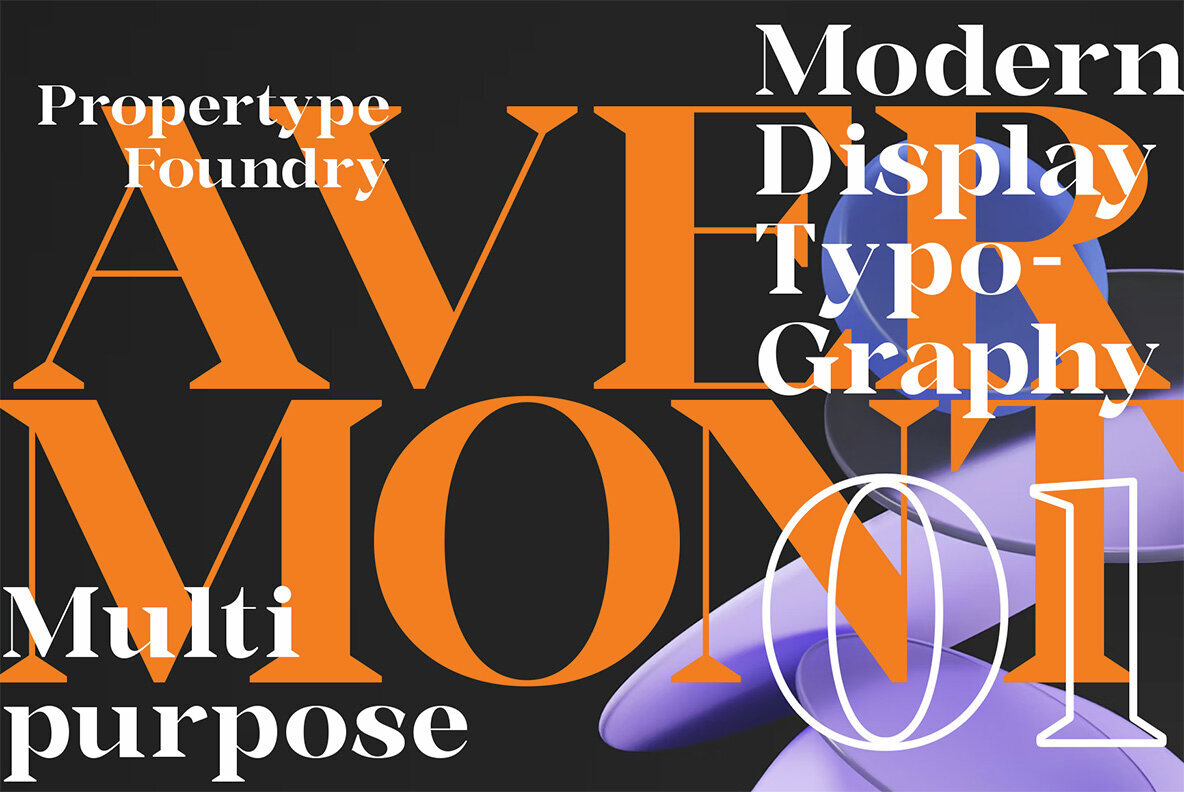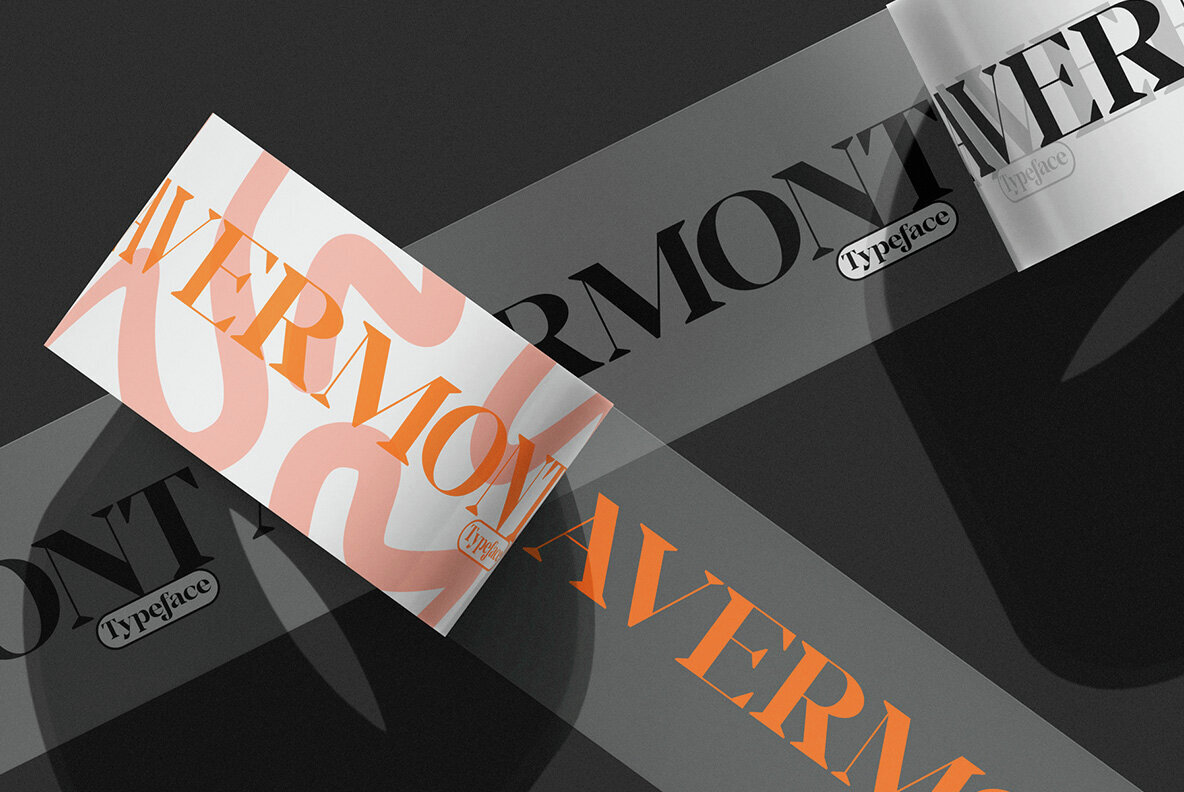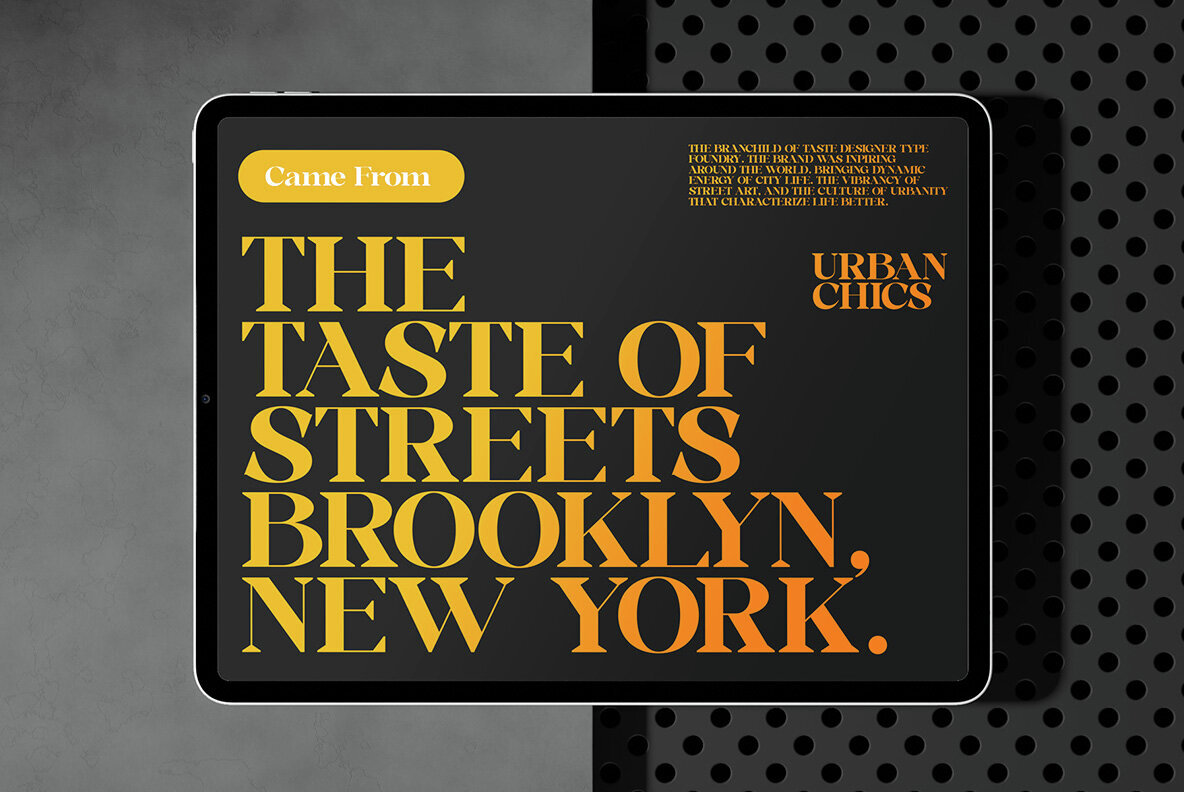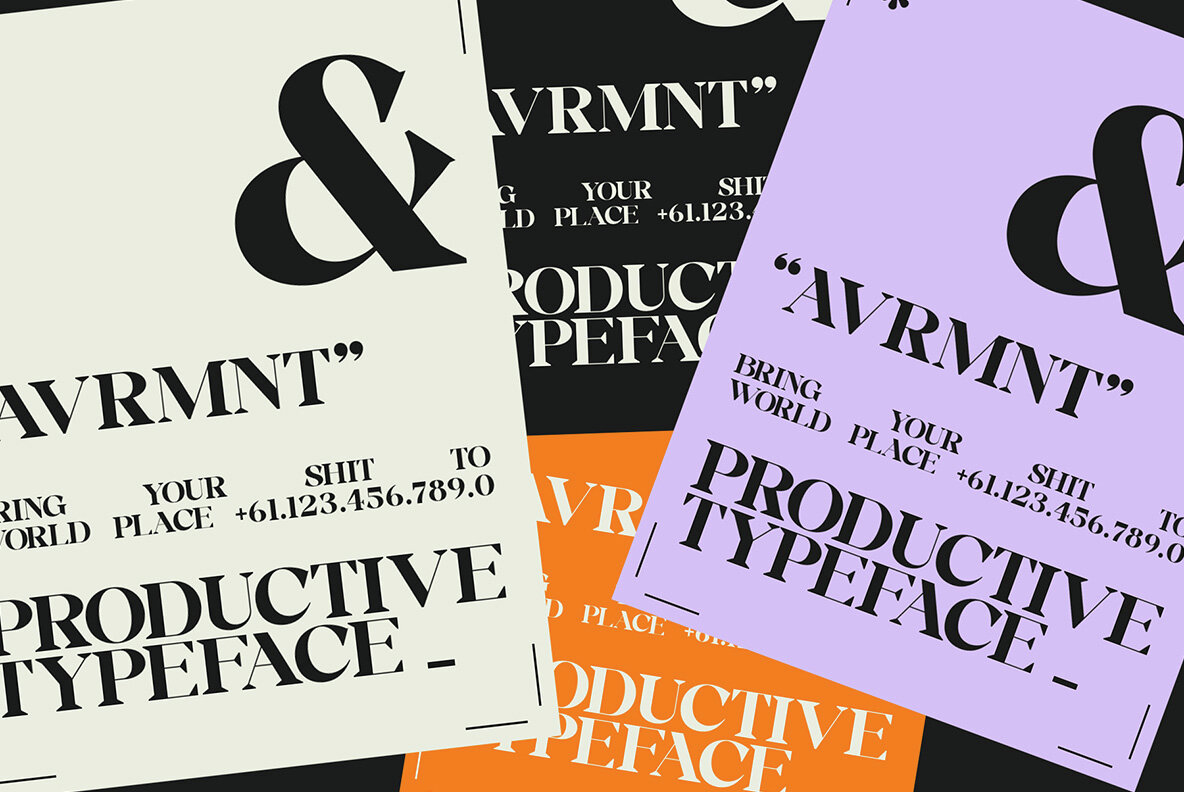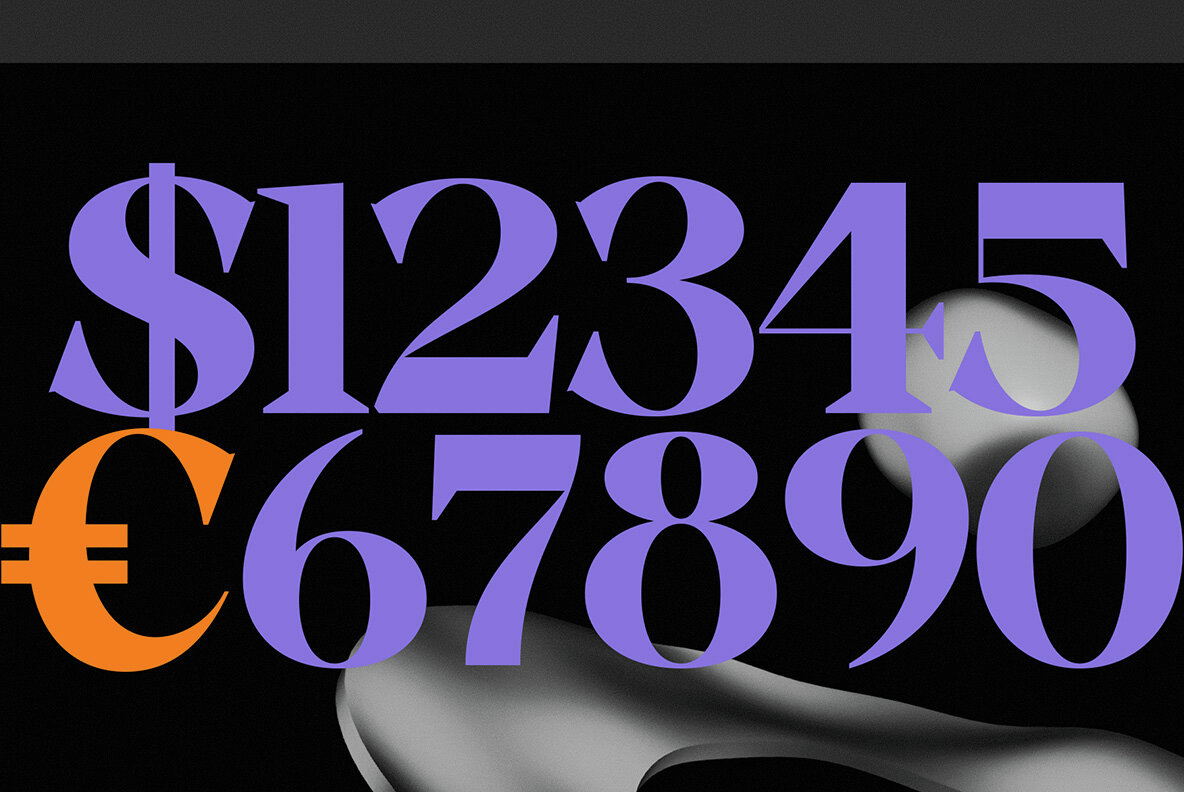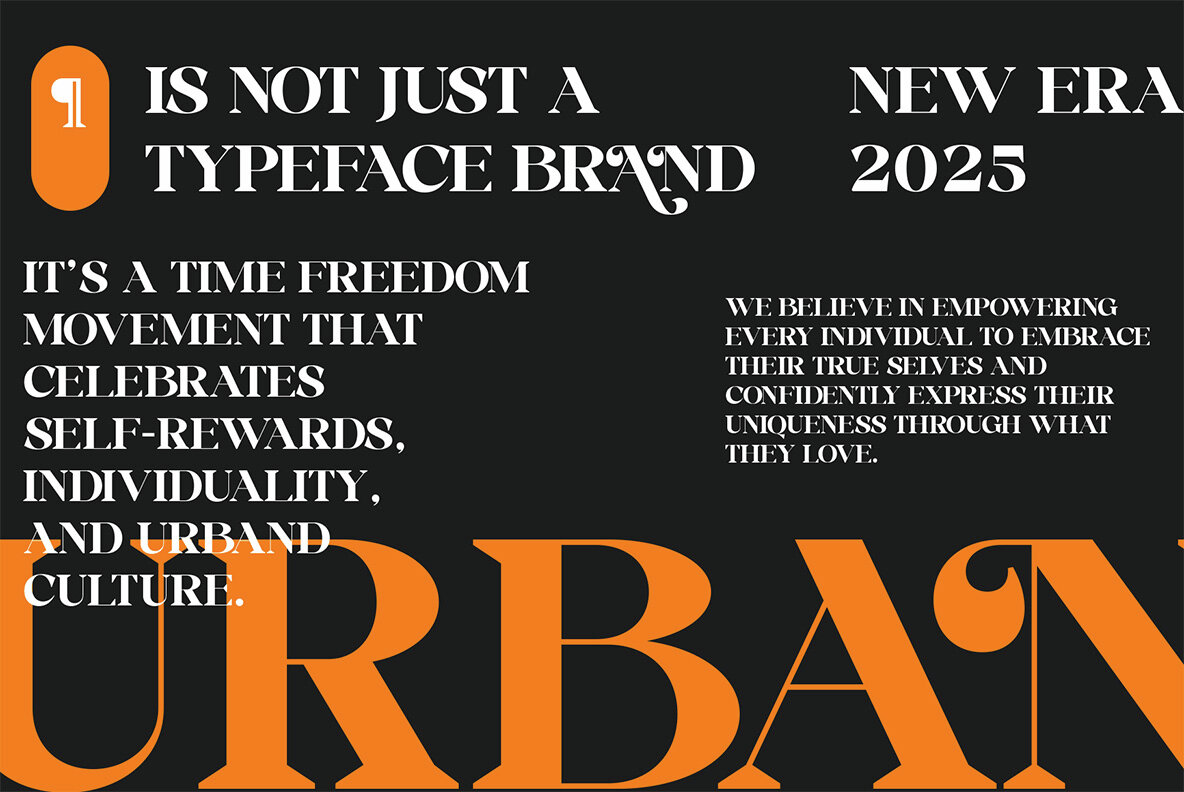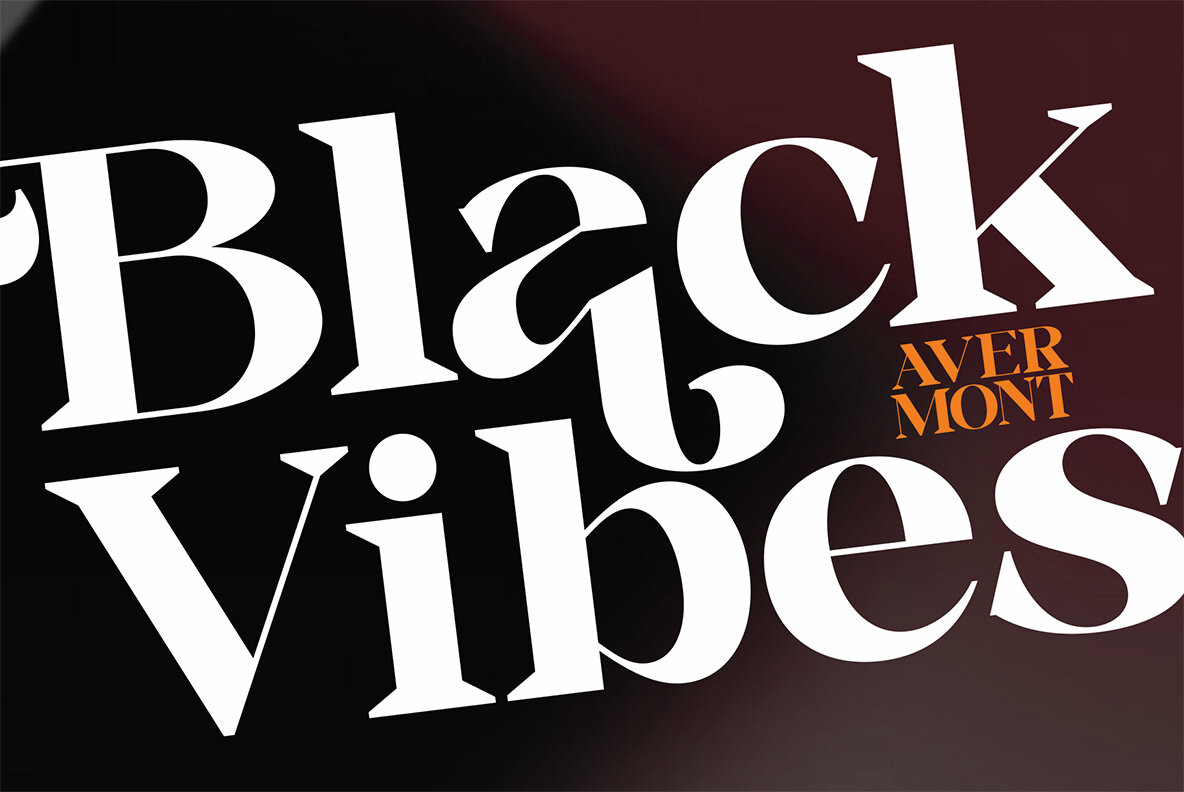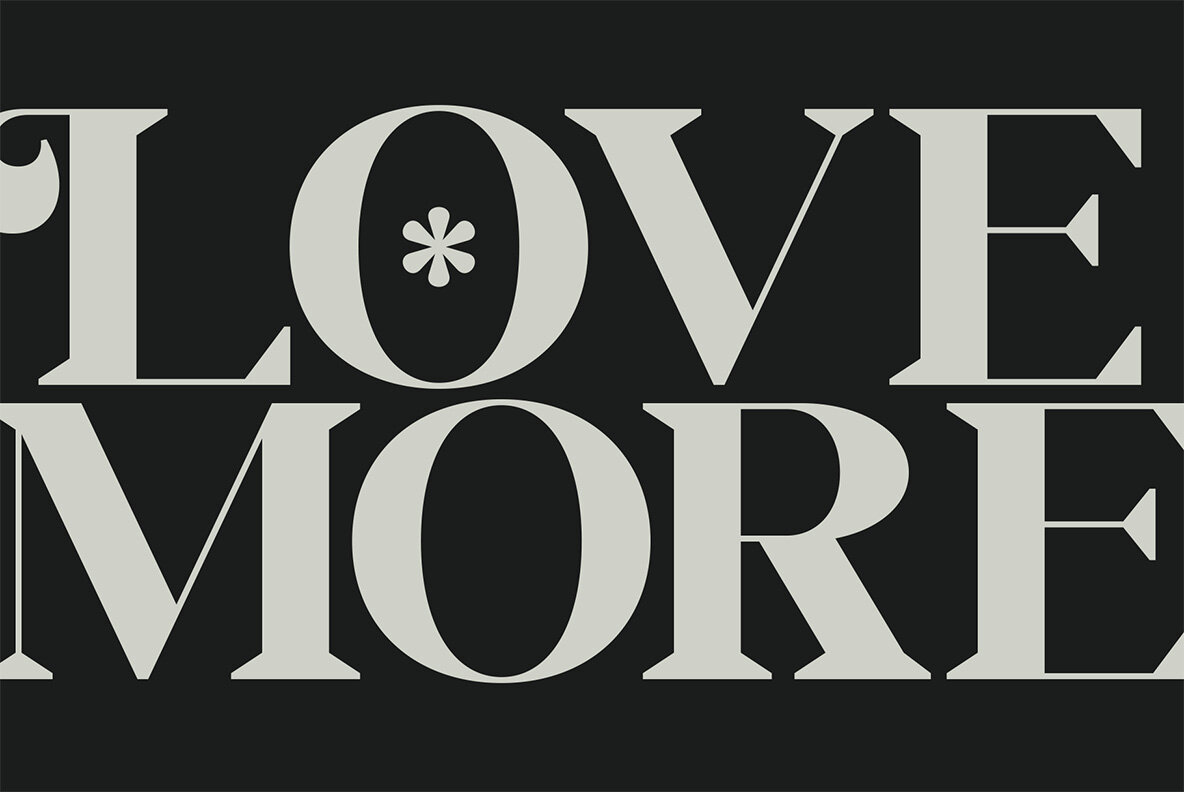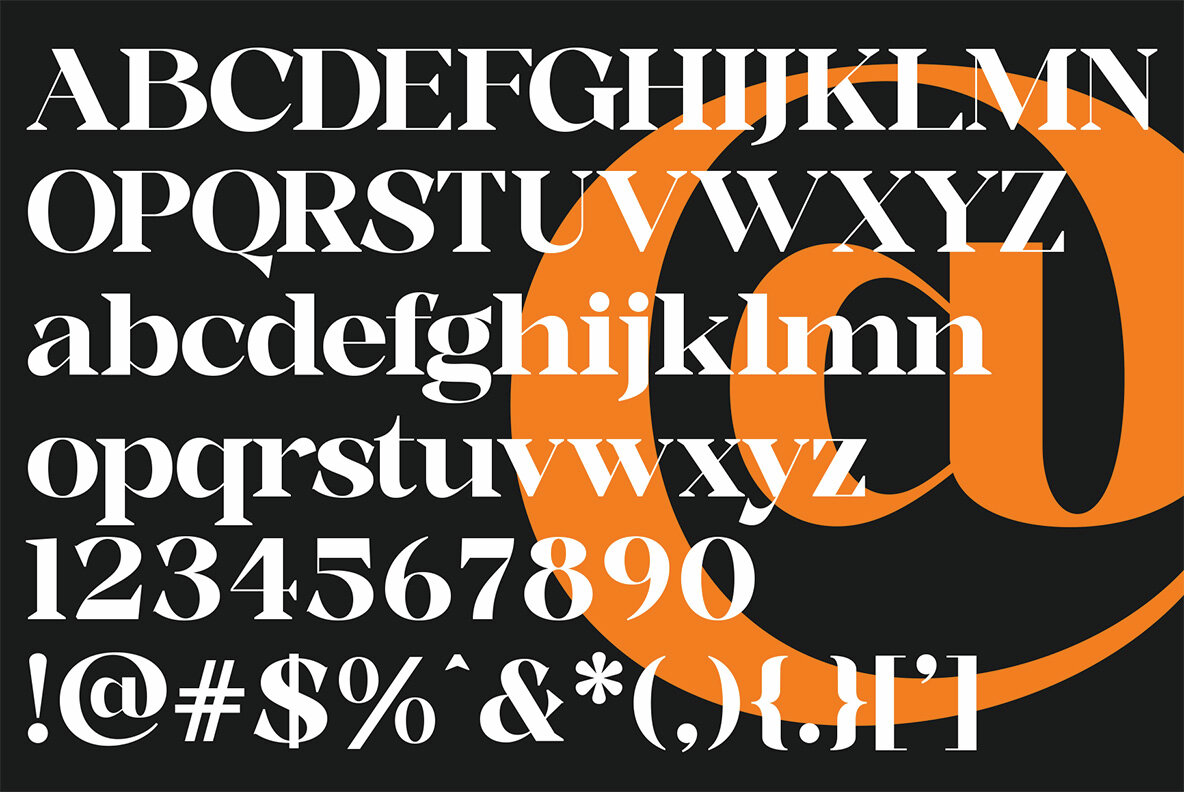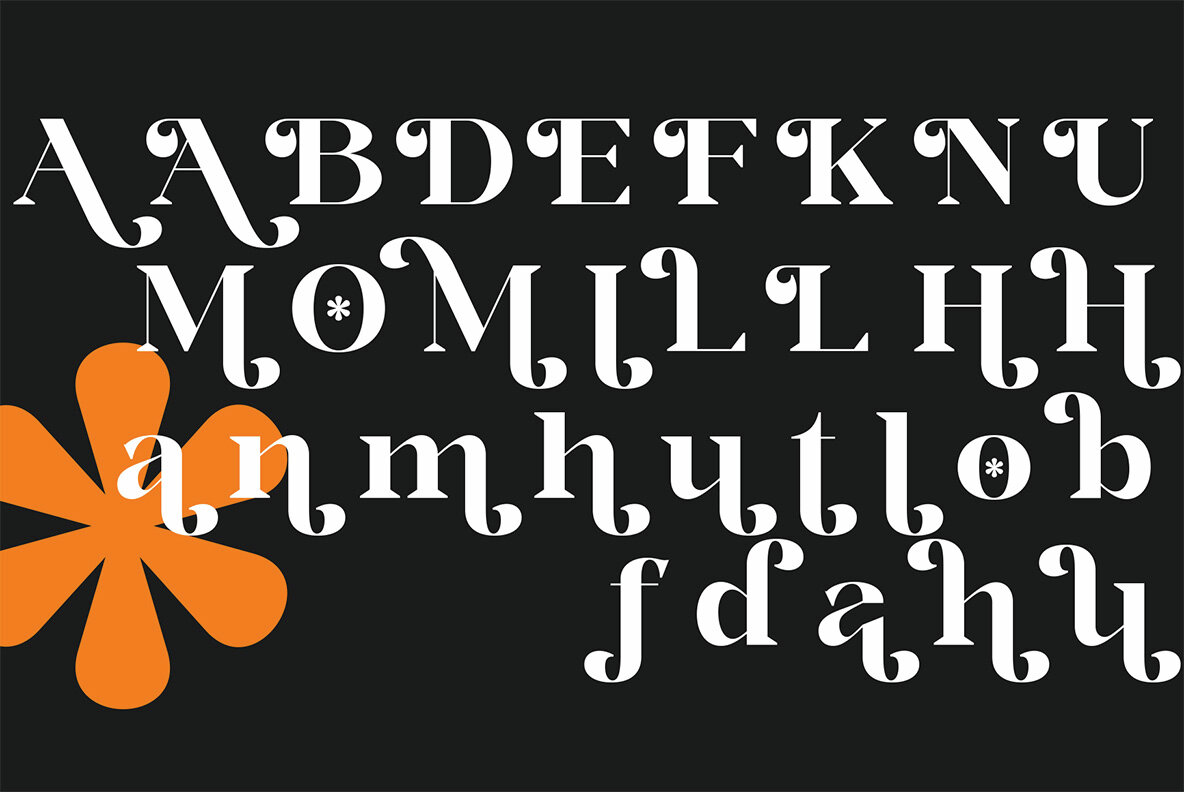
Avermont Font
The Avermont serif font masterfully blends timeless elegance with contemporary nuances, catering to varied design requirements that demand a sophisticated and professional appearance. Avermont achieves a perfect balance with its meticulously crafted letterforms, offering both readability and aesthetic appeal. It is an ideal choice for those wishing to convey a sense of class and compelling visual impact. This font family reflects dedicated craftsmanship, ensuring it is both accessible and a pleasure to work with.Avermont: A Harmonious Serif for Elegant Designs